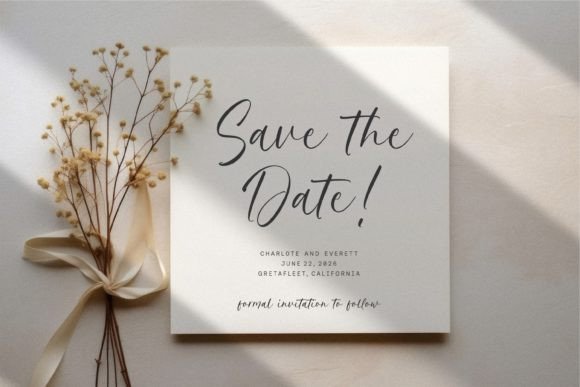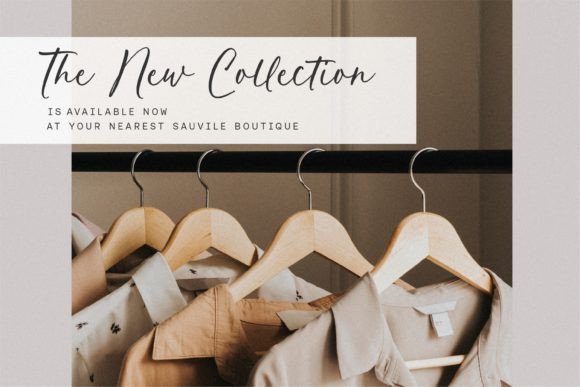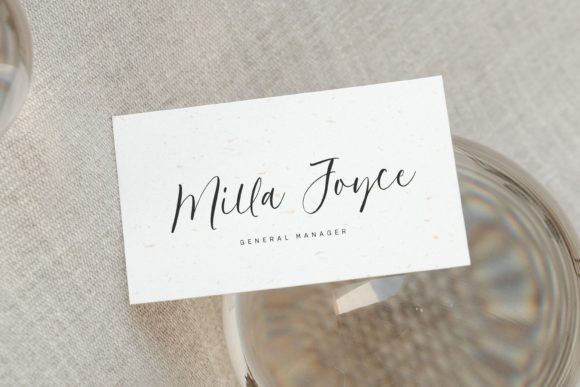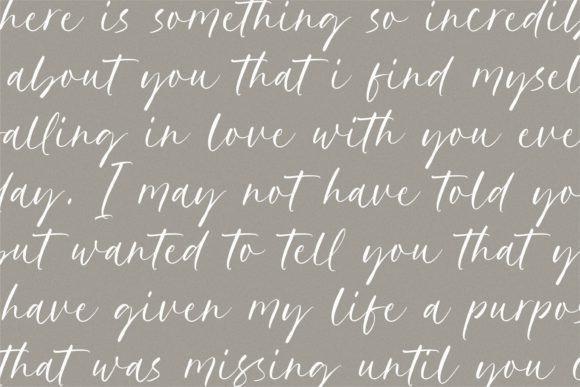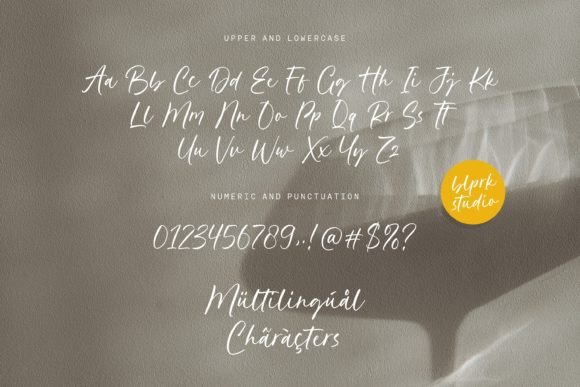
Introduction to Hillary Austine Font
Have you ever stared at a blank page, wondering how to add that special touch to your design project? We’ve all been there – searching for the perfect font to elevate our creative vision. For designers, finding the right font can be a game-changer. It’s the difference between a good design and a great one.
That’s why we’re excited to introduce you to the Hillary Austine Font, a modern calligraphy font that’s perfect for adding a personal touch to your design projects. With its natural, organic feel and unique character, this font is incredibly versatile and can be used for a range of design projects, including logos, branding, invitations, and more.
Key Features of Hillary Austine Font
- High-quality design: Hillary Austine Font is a unique and creative design resource perfect for various projects, including branding, advertising, and publishing.
- Unique characteristics: The font’s unique blend of modern and vintage elements makes it an excellent choice for designers looking to add a touch of elegance and sophistication to their creative projects.
- Design versatility: Hillary Austine Font is highly versatile and can be used for a wide range of design applications, from logos and branding to packaging and advertising.
Honest Review: Hillary Austine Font
I recently stumbled upon the Hillary Austine Font while searching for a design resource for a creative project. I was immediately drawn to its unique and elegant aesthetic, making it perfect for a variety of applications, from typography to branding.
Here are some of the things that work well with the Hillary Austine Font: ✨
- Unique and elegant aesthetic
- High quality and versatility
However, there are a few limitations to be aware of: ⚠️
- Some users may find the font too elegant or minimalist for certain design projects
- Limited character set and language support